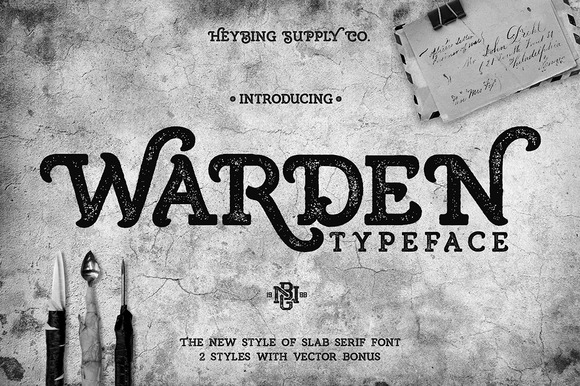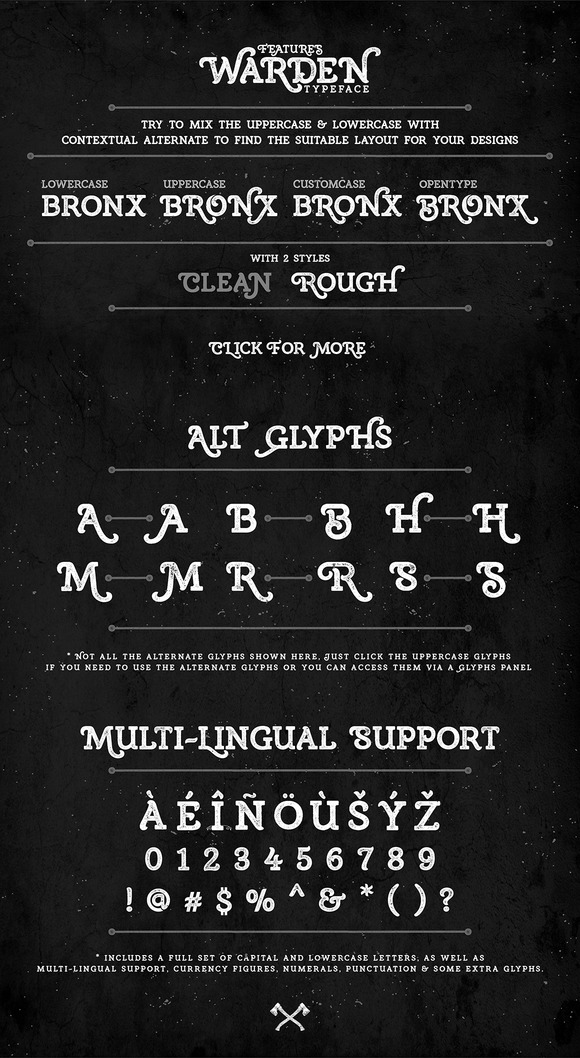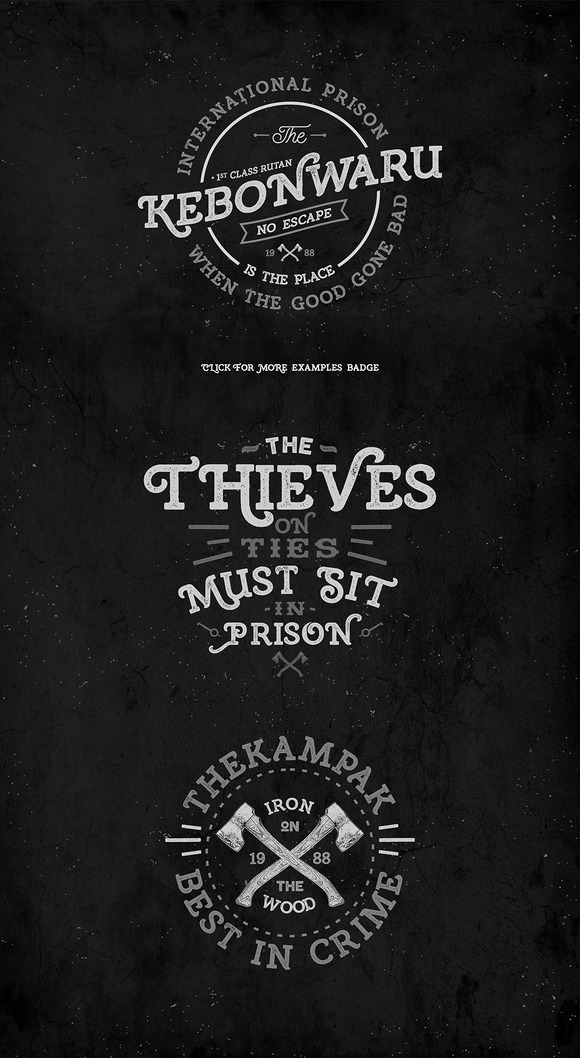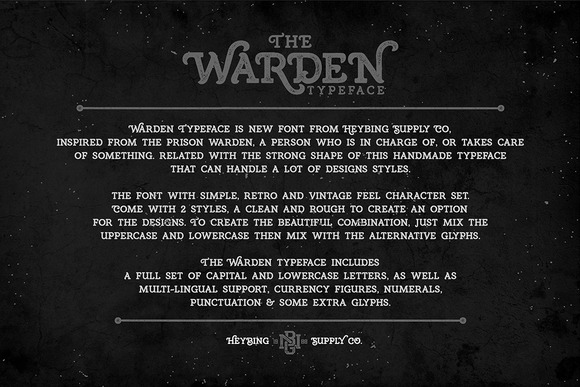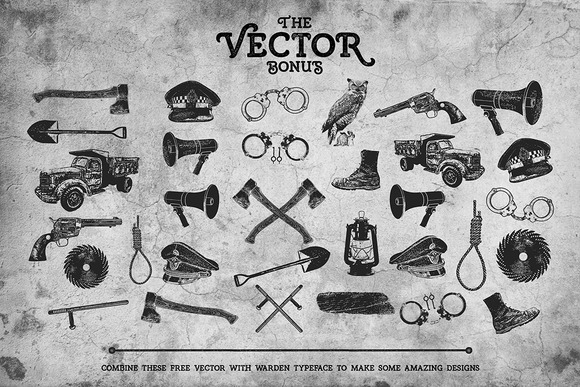
Warden Typeface
Warden Typeface inspired from the prison warden, a person who is in charge of, or takes care of something. related with the strong shape of this handmade typeface that can handle a lot of designs styles. The font with simple, retro and vintage feel character set. Come with 2 styles, a clean and rough to create an option for the designs. To create the beautiful combination, just mix the uppercase and lowercase then mix with the alternative glyphs